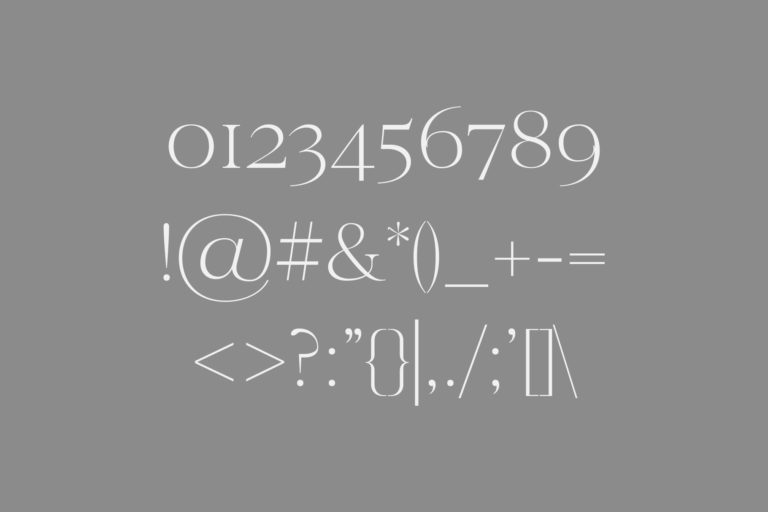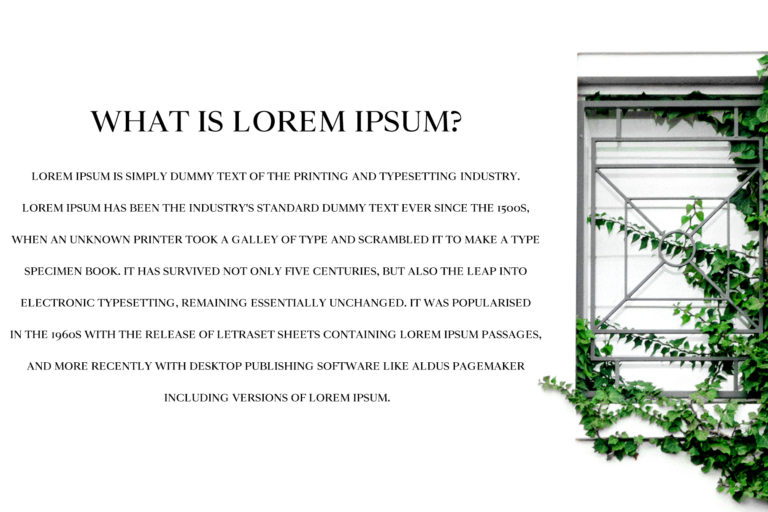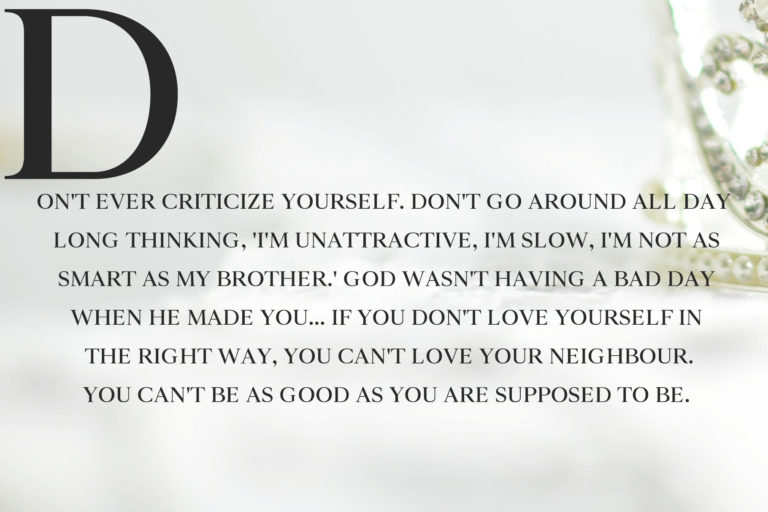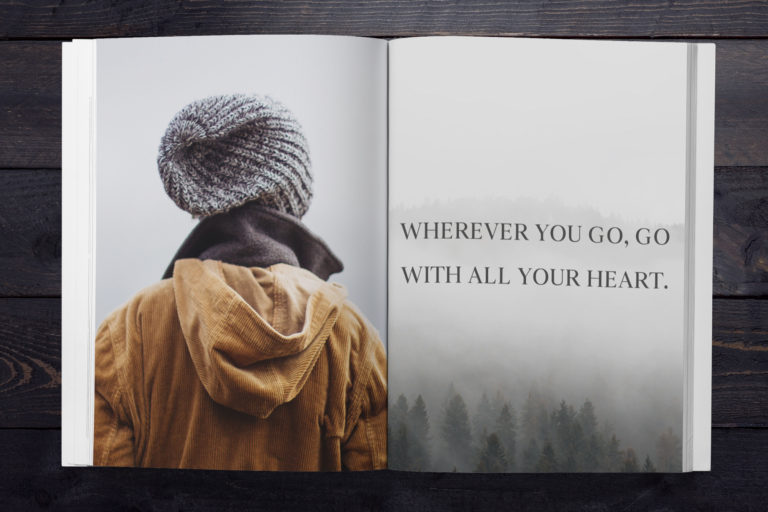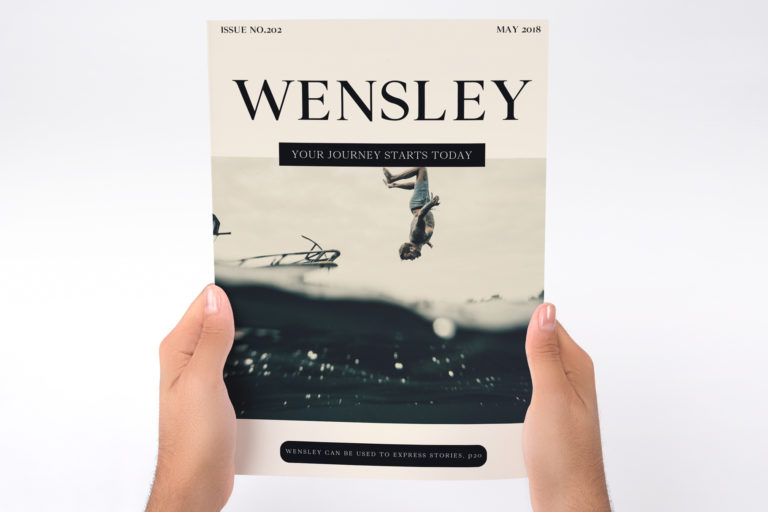
- Wensley Modern Serif Font Family
Wensley is a modern high-class serif font typeface. Font family includes all basic glyphs with Non-English characters. This font will pair beautifully with the script, signature or handwriting style. Wensley is perfect for headlines, titles, magazines headings, logo’s, presentations, posters, name card, web layouts, invitations, books, branding, and nearly any creative design.
Where to use this beautiful typeface ?
This elegant typeface is a great choice for display use including bold headlines or logo designs. The font family is also great for plenty of design projects such as branding, packaging, poster designs, websites, or editorial work. Its high contrast shapes ensure great readability—that’s why you can also use it for texts in small sizes.